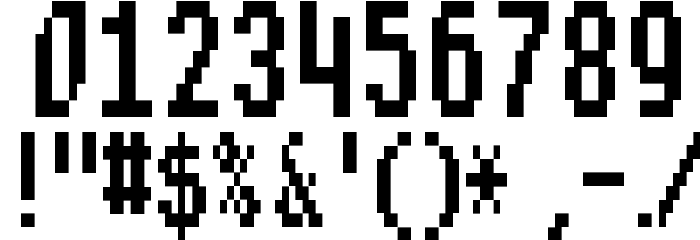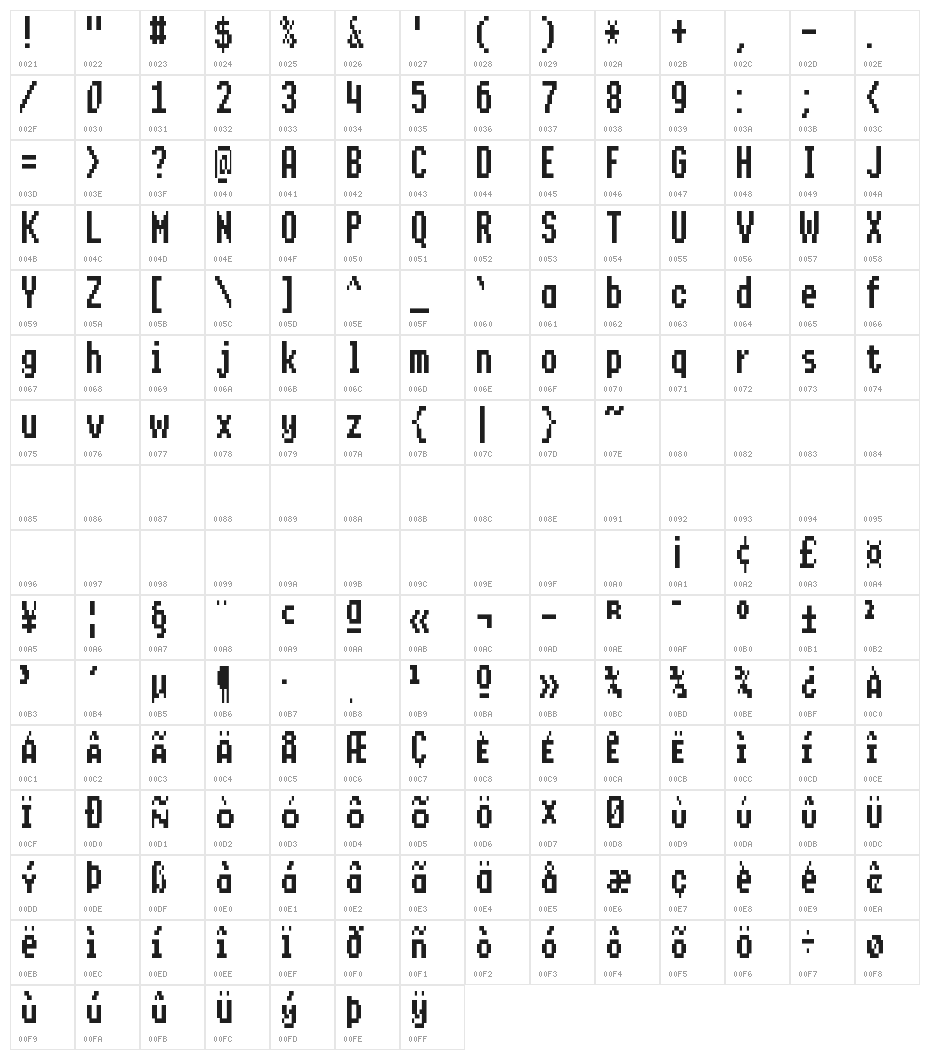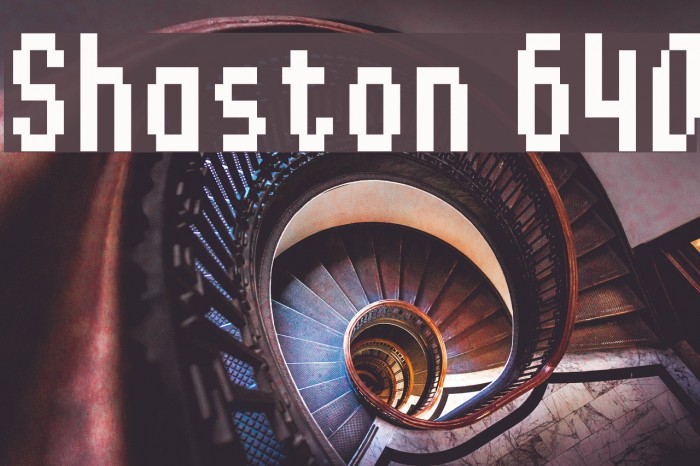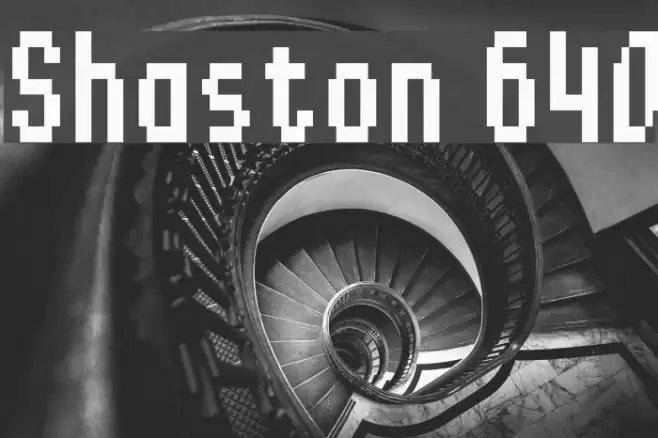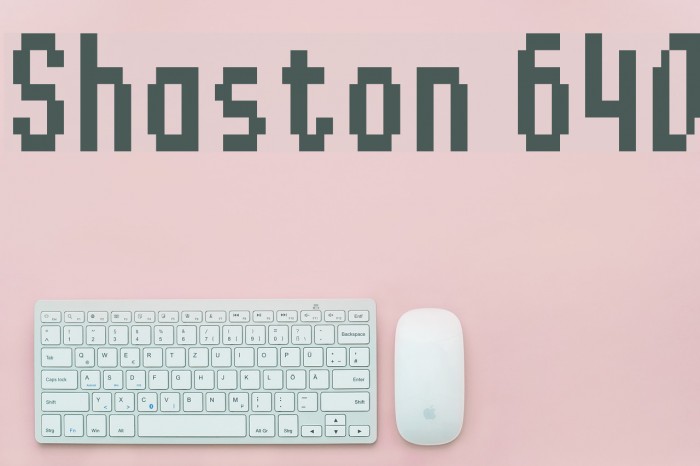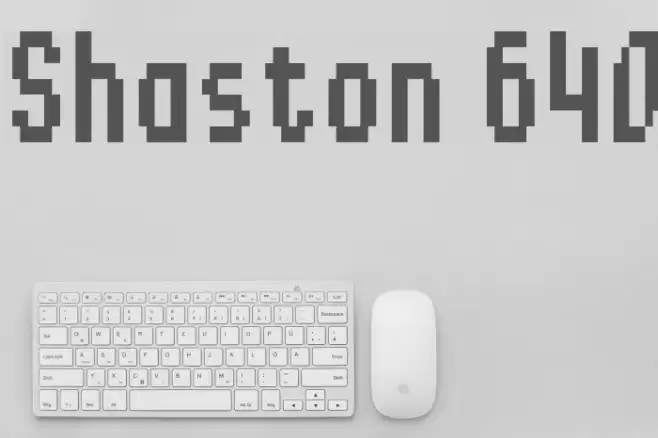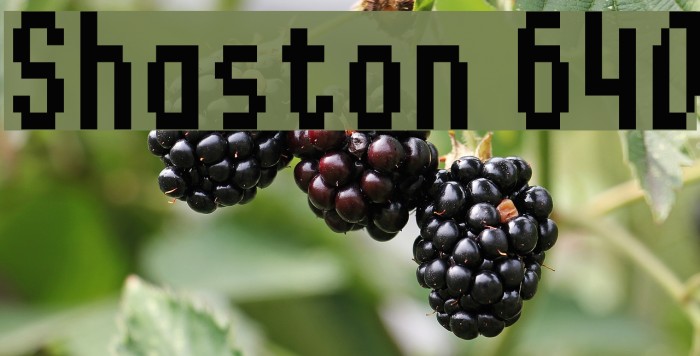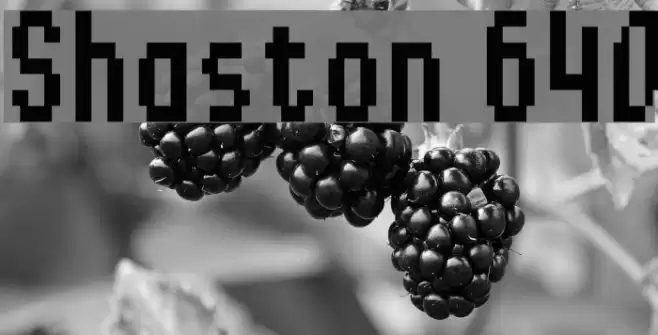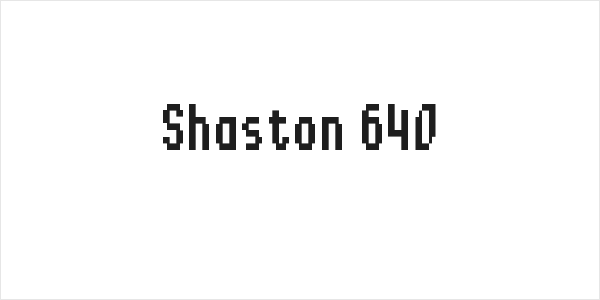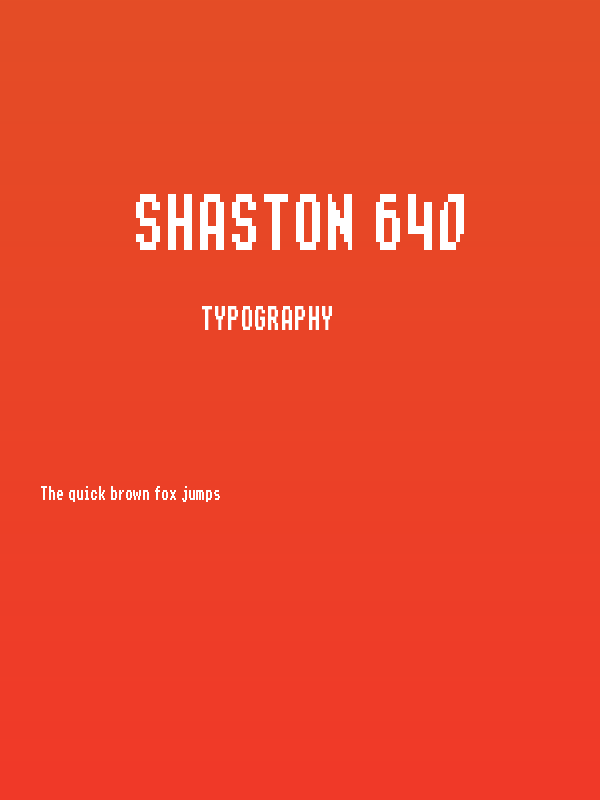
Shaston 640 Font
Shaston 640 Description
This font features a bold, pixelated design reminiscent of early digital displays and retro video games. Each character is constructed with a blocky, grid-like structure, giving it a distinctly digital and vintage feel. The uppercase and lowercase letters maintain a consistent height, contributing to a uniform appearance across the text. Numbers and special characters follow the same pixelated style, ensuring cohesion throughout. The font's simplicity and clarity make it highly legible, even at smaller sizes. Its nostalgic aesthetic is perfect for projects that aim to evoke a sense of the early computing era or retro gaming culture.
| Use Case | Logos, Headlines, Digital displays |
| Proposed Projects | Ideal for retro video game designs, digital art projects, tech-themed posters, and nostalgic branding. |